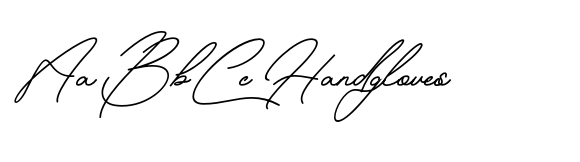
Betriciya Signature
Introducing Betriciya Signature
An elegant, graceful, yet simplistic cursive font.
Inspire your audience, clients, or guests with this stylish, handwritten font that can be used for almost every platform such as websites, social media, pinterest, printed cards and many more!
Aesthetically pleasing handwritten cursive font, just for beautiful you!
Multilingual & Ligature Support
Full sets of Punctuation and Numerals